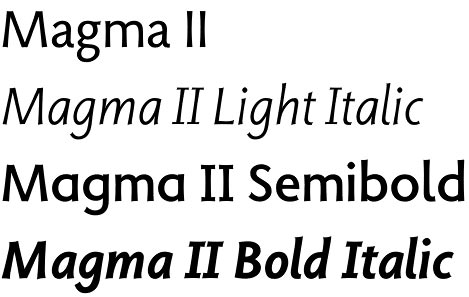
Magma II font
Magma II font is one of the best font families by Summer Stone and at the same time one of the best contemporary humanistic sans. Designed by a great talent and master of type Magma II is incorporating the legibility and modern look of sans serif typography with the fresh and authentic spirit of natural hand-writing. Flared stems, terminals with artistic touch, elegant and live italics – these are the most visible signs that describe Magma II best. On second look you will find lots of fresh and friendly combinations between uprights and italics, light and black weights, etc. You’ll be surprised to discover how many OpenType characters will be available only if you use the right compatible software – alternates, ligatures, multilingual characters and many more making the Magma II family even more sophisticated, complete and diverse. Developed in 5 weights each with corresponding italics, Magma II font family is excellent choice both for display and text use. Its originality and enhanced legibility make it perfect not only for print use but for screen apps, web-font, e-books, etc.
Magma II font family is designed by one of the stars of modern typography – Summer Stone – and published by Stone Type Foundry.
Designers: Sumner Stone
Publisher: Stone Type Foundry